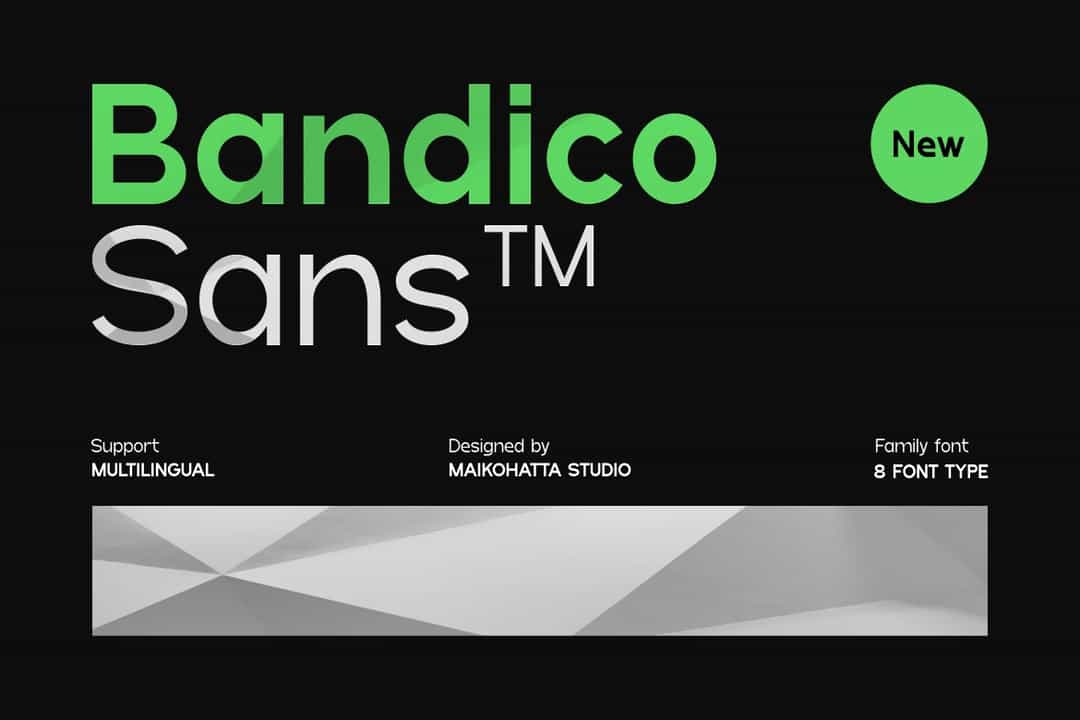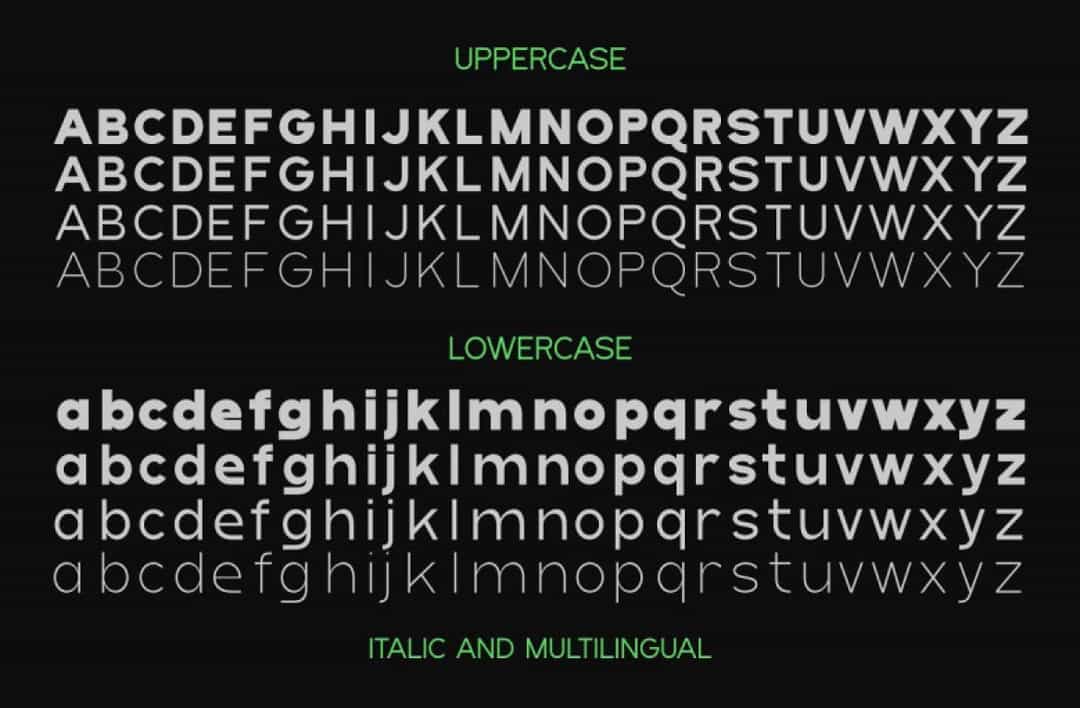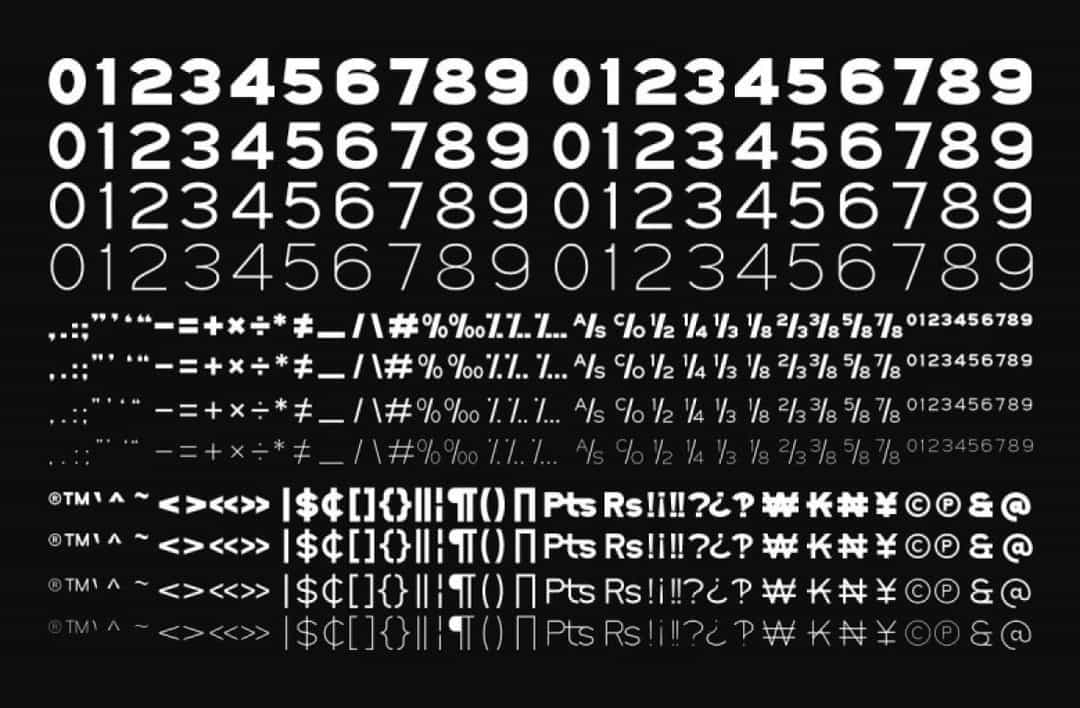
Discover Bandico Font, part of the Sans Serif collection—a versatile and unique font perfect for adding a personal touch to your projects. Download it for free and enjoy crafting designs with style, from invitations to social media posts. This font is available exclusively for personal use, giving you the freedom to create without limits. Unlock your creativity with Bandico Font today!
Please meet Bandico – Modern Sans Serif Typeface our new product. A font family that comes in different styles yet they are sans serif is a very useful type for graphic design use and to display texts in a neat and minimal style. This font family is a sans-serif font that is suitable for use in graphic design due to its versatility.